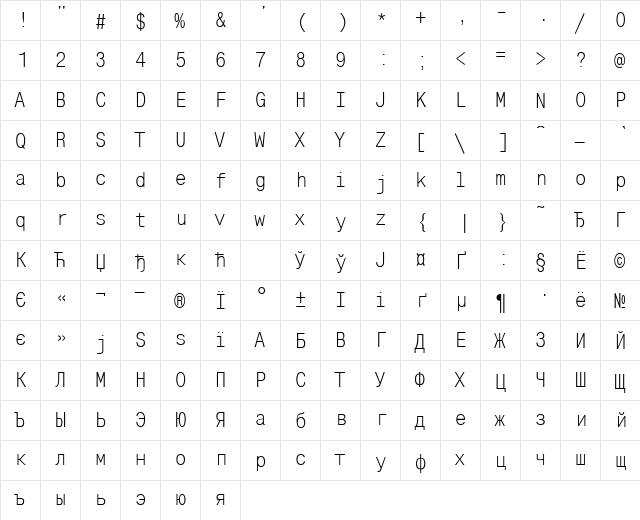
MonoCondencedDi Regular
Design Context for MonoCondencedDi Typeface
MonoCondencedDi brings the precise, column-aligned rhythm of monospaced typography to designs that value technical clarity and systematic order.
Pro Tip: Pair MonoCondencedDi with a proportional sans for UI contexts where code-style labels and regular body copy need to coexist.